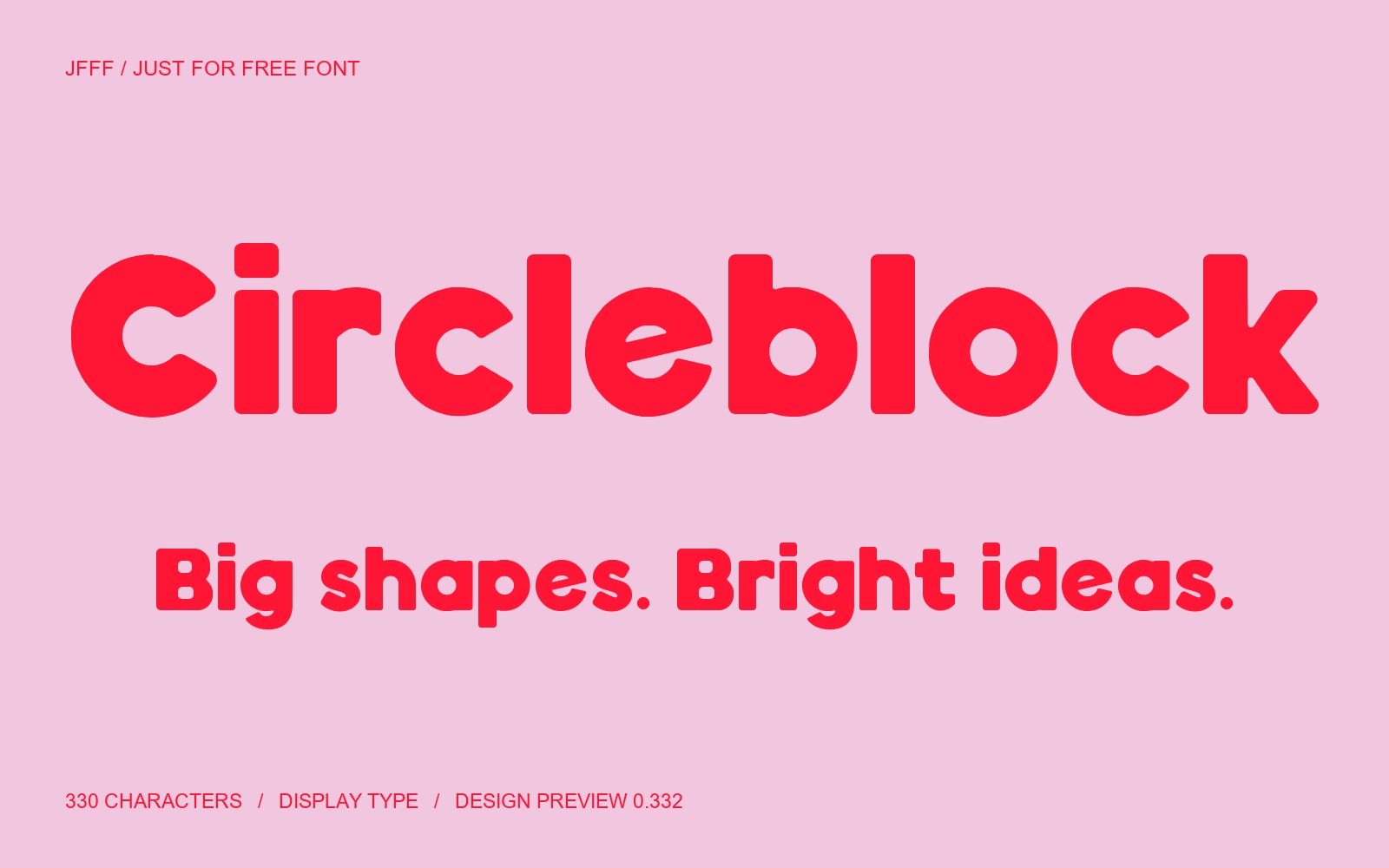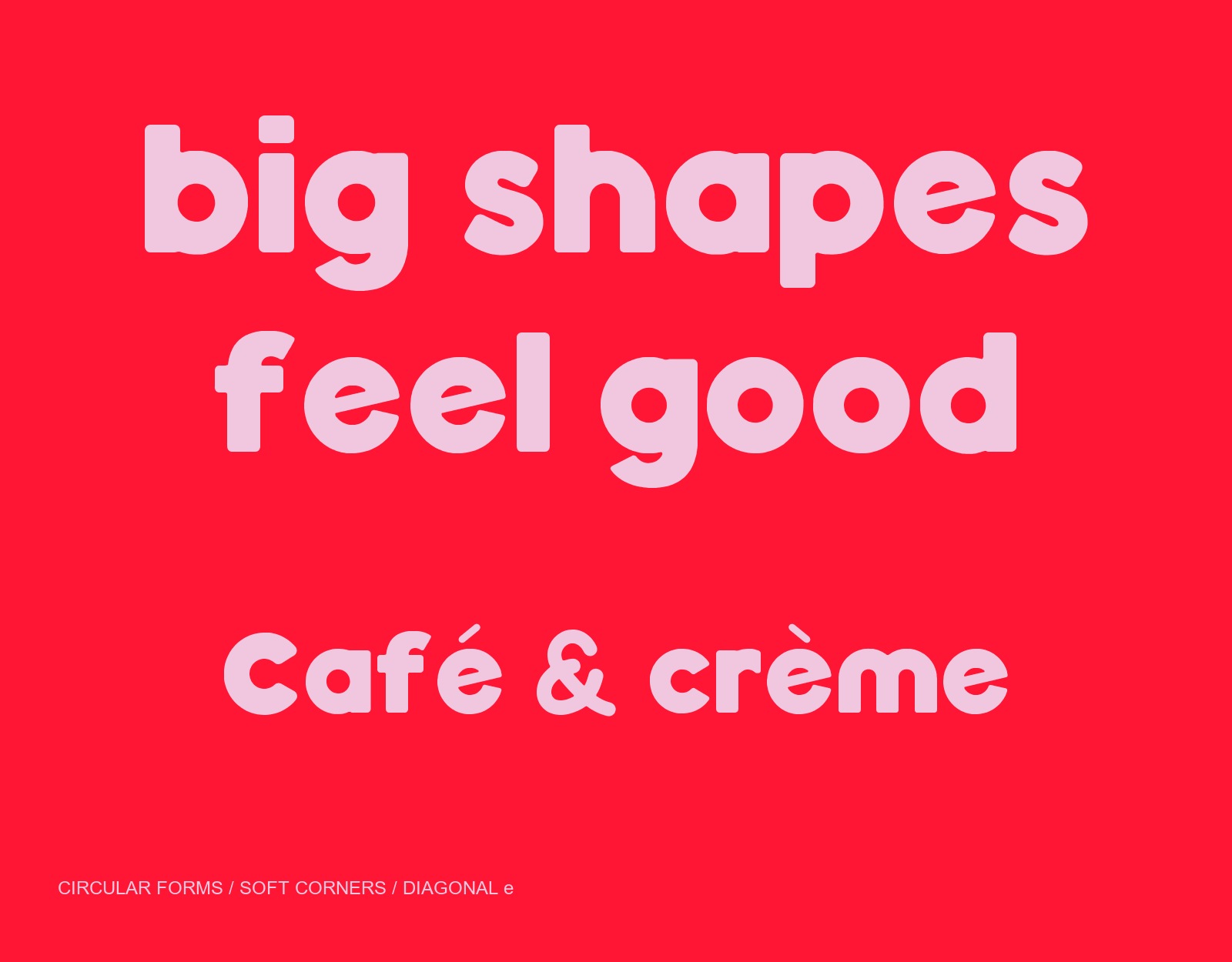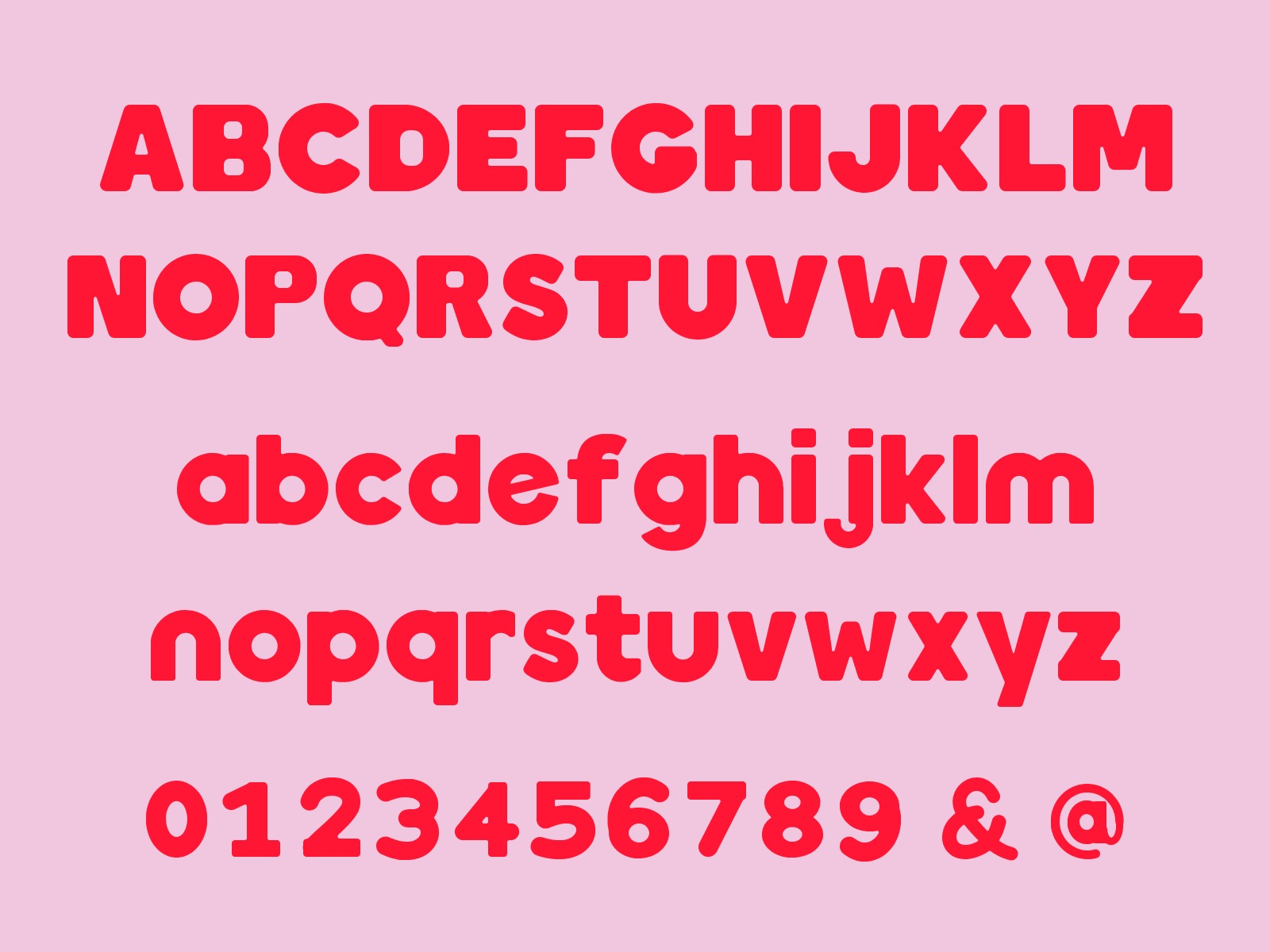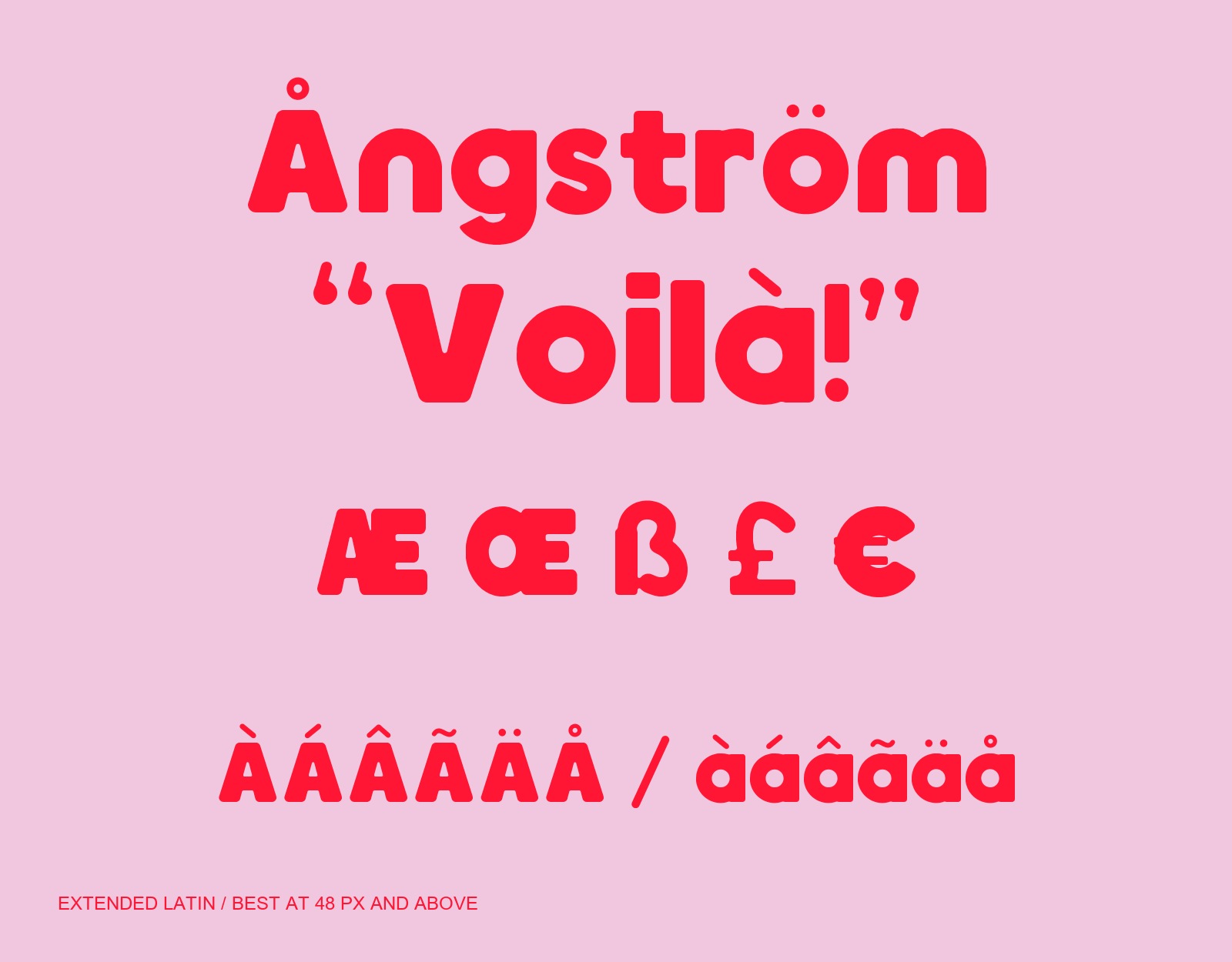
Latin only. No Hangul.
Circleblock is a heavy geometric display font with circular forms, softly rounded corners and a diagonal lowercase e. Includes 330 encoded characters: uppercase, lowercase, figures, punctuation and extended Latin. Design Preview 0.332 is intended for short headlines, posters and playful packaging at 48 px or larger. The download contains a TTF and SIL OFL 1.1 license for free personal and commercial use. Small text, native editing-app installation and language-native editorial checks remain outside the completed review. Use precomposed (NFC) accented text. Specimen colors are illustrative; the font itself is monochrome.